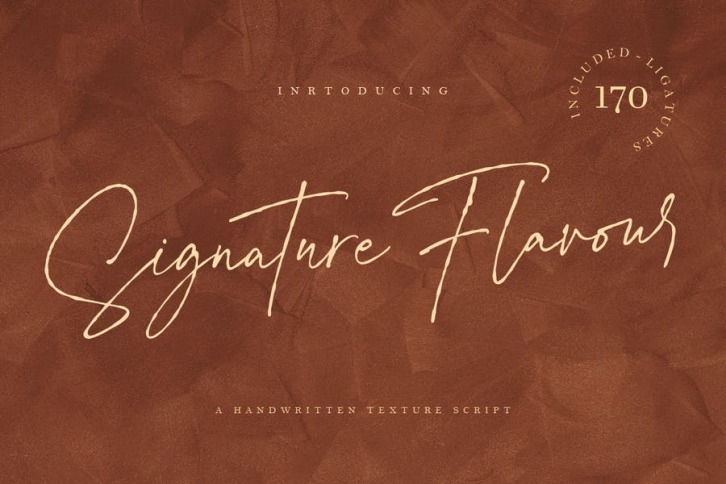
introducing a new font Signature Flavour is a feminine type of Hanwritten with a distinctive texture pen that you can use to beautify your work.
with the addition of 2 types of lowercase, you can change it as you wish to make the brand, logo, and whatever you want.
Signature Flavour also provides 170 types of Ligature that you can use to add beauty design / words that you make, and some swash that you can use to add beauty to your writing.